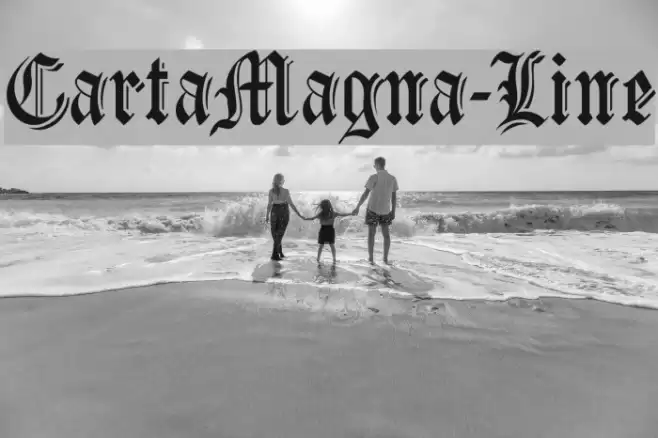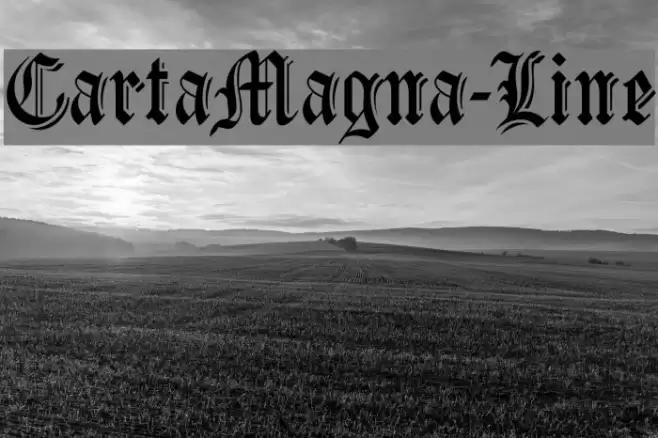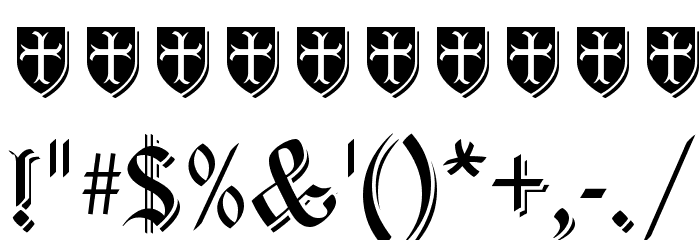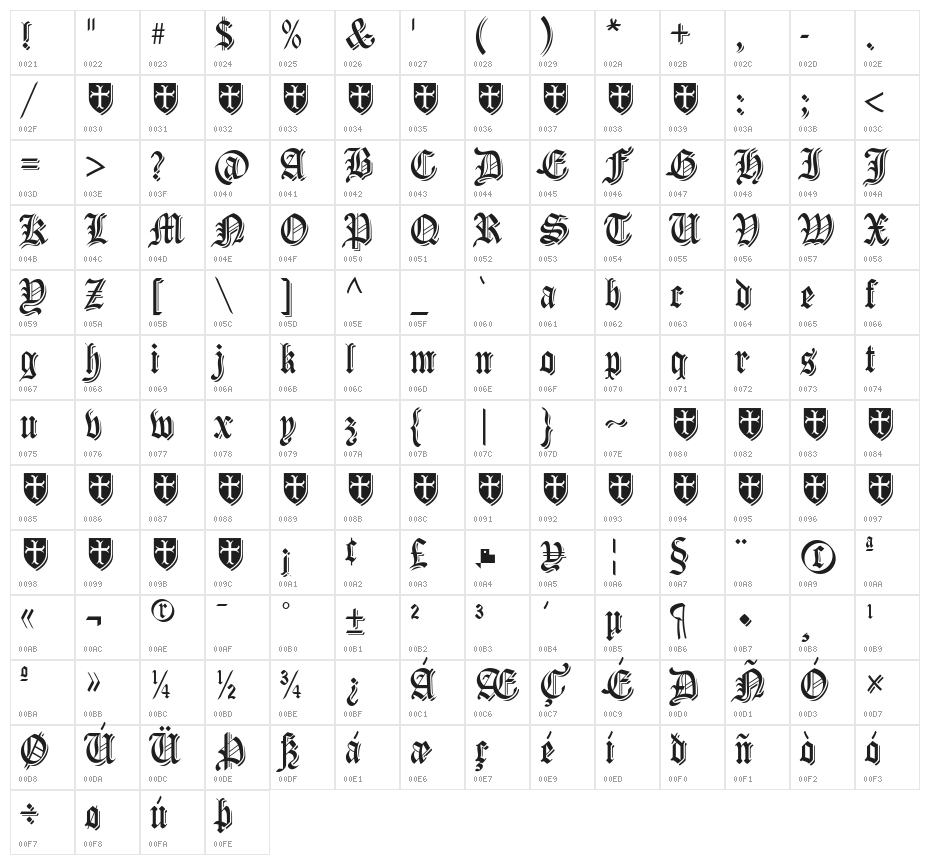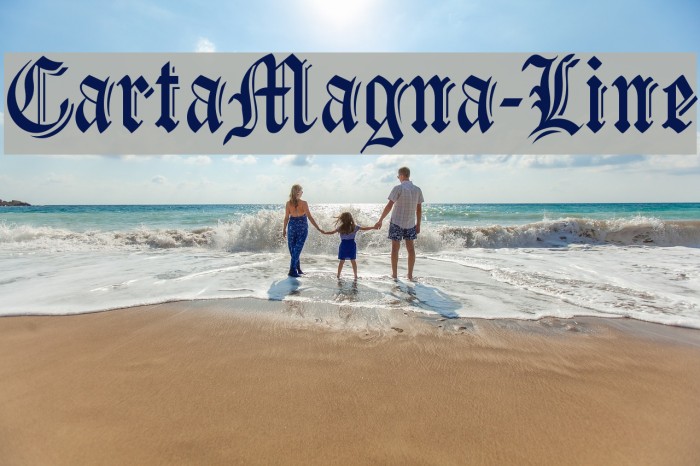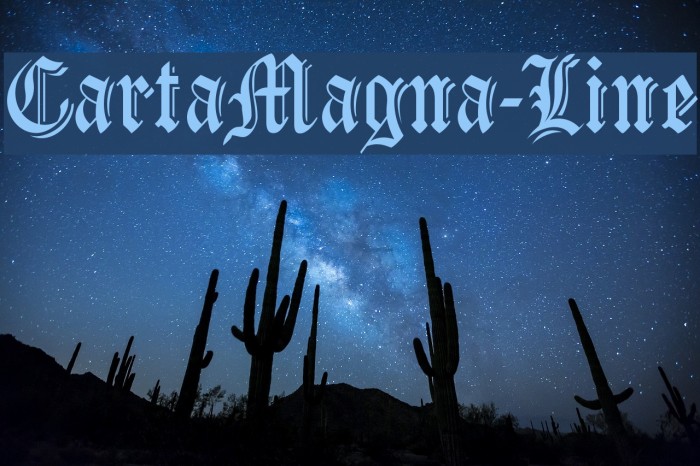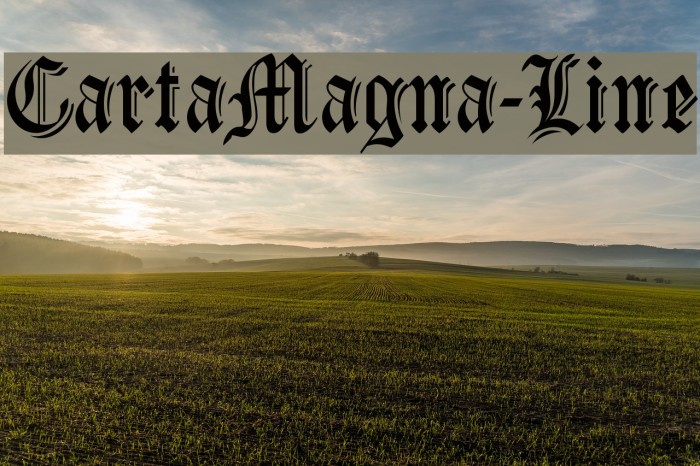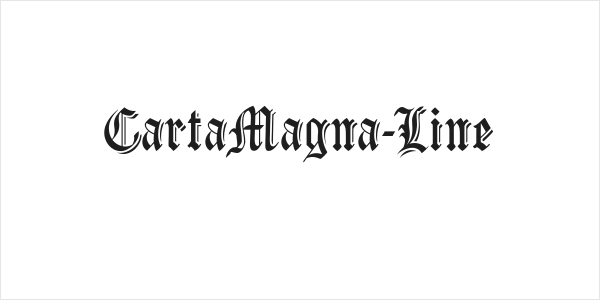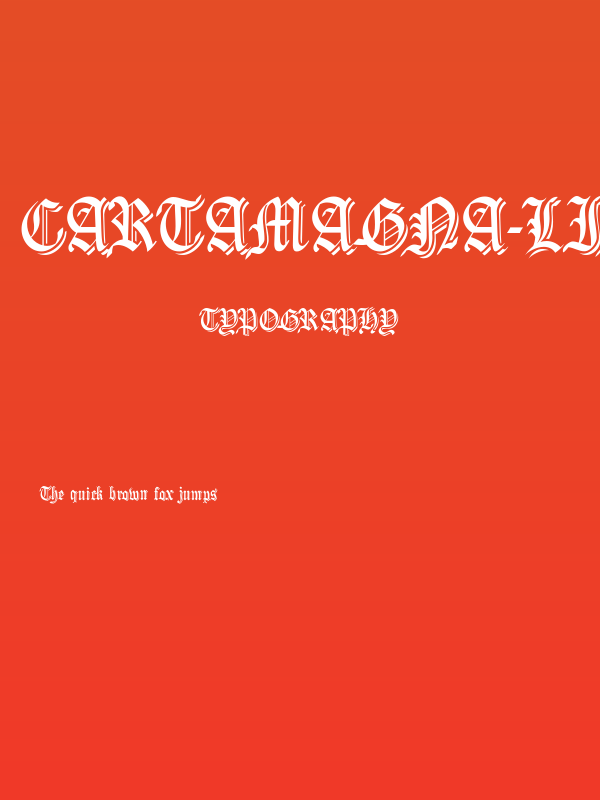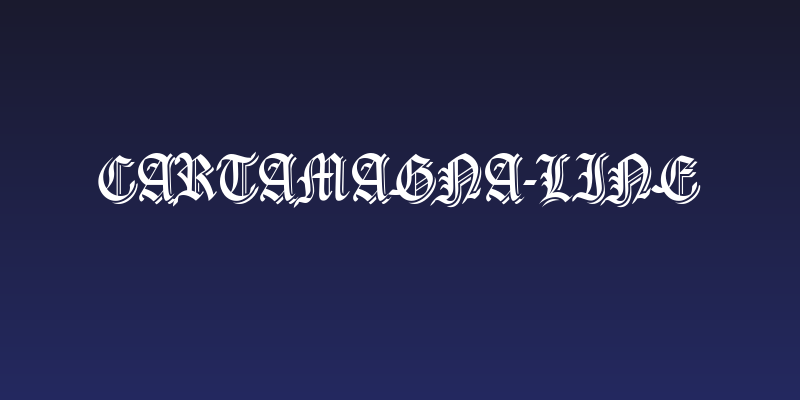
CartaMagna-Line Font
CartaMagna-Line Description
This font features a classic blackletter style, reminiscent of medieval script used in historical documents and manuscripts. The uppercase letters are ornate with intricate details, while the lowercase letters maintain a consistent gothic aesthetic. The characters are bold and striking, with sharp angles and flourishes that enhance their decorative appeal. The numerals and special characters follow the same stylistic approach, ensuring a cohesive look across all text. This font exudes a sense of tradition and formality, making it suitable for projects that require a historical or vintage touch.
A bold, decorative blackletter font with a classic medieval style from Uncategorized fonts.
- Proposed Projects: Ideal for historical documents, vintage posters, book covers, and branding that requires a traditional or gothic theme.
- Overall Style: Vintage
- Use Case: Logos, Headlines, Decorative text